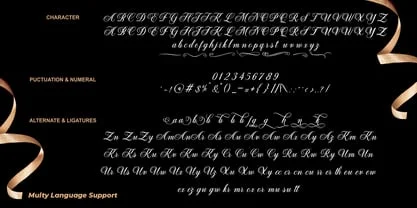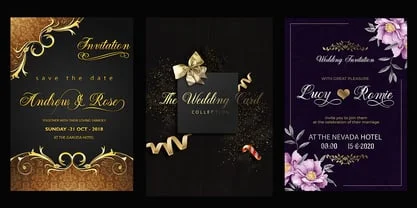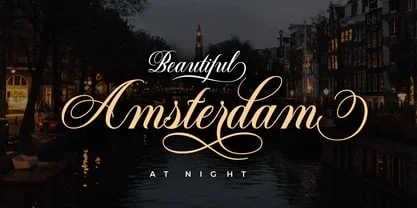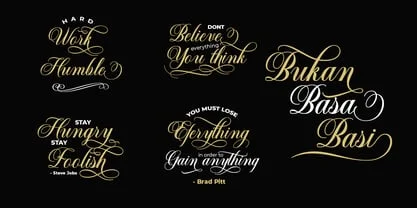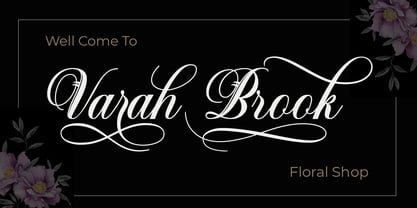
Claudia Betta Font
Typography shapes perception at a subconscious level. Claudia Betta leverages strong typographic hierarchy support to make every composition feel considered. The typeface brings an elegant, calligraphic sensibility to a broad range of creative disciplines, with the kind of restraint that lets content lead that holds up whether the work is print-first or screen-first.
In practice, Claudia Betta proves particularly effective for fashion editorials, boutique logos, product labels, signage systems, greeting cards. Designers reaching for it find that the type decisions feel resolved rather than laboured — a useful quality when client timelines are tight.
The range of applications extends to perfume labels, packaging design, advertising campaigns, bridal materials. That breadth is deliberate: the proportions and spacing were stress-tested across a wide range of mock briefs before the typeface was finalised.
Independent studios handling packaging and editorial work find Claudia Betta a reliable choice for projects that demand both personality and restraint. The design avoids the self-conscious quirkiness that dates quickly, settling instead for considered distinctiveness that holds up over time.